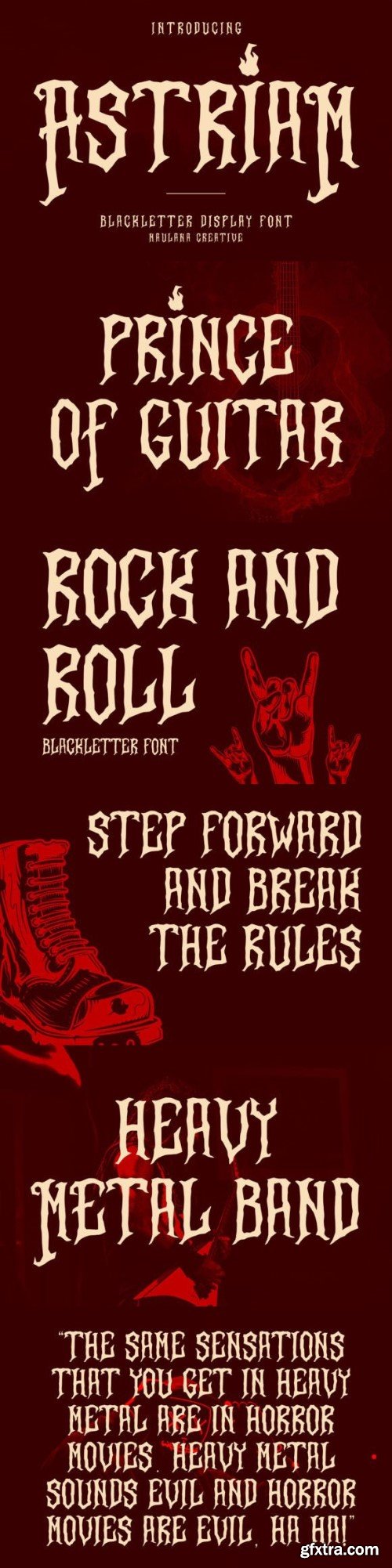
阿斯塔拉姆字体
Astriam is a bold and thick lettered blackletter font. Add it confidently to your projects, and you will love the results. This font is PUA encoded which means you can access all of the glyphs and swashes with ease.